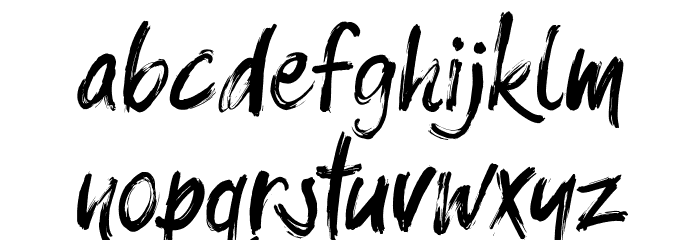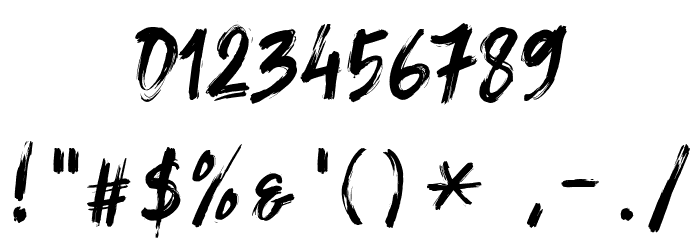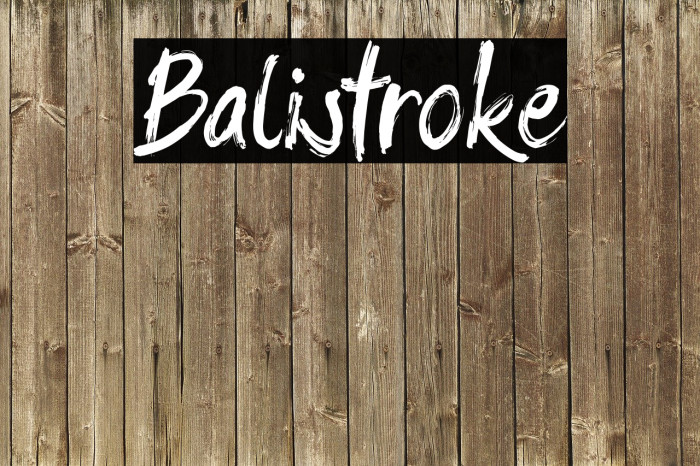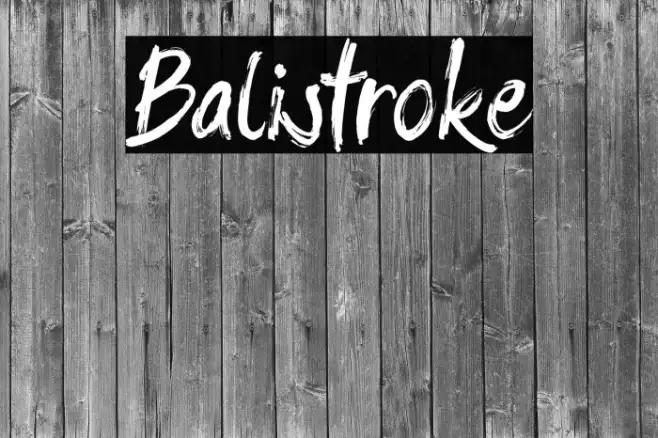
Balistroke Font
This font exudes a bold and expressive style, characterized by its brushstroke appearance. Each letter is crafted with a dynamic and energetic flair, giving it a hand-painted look. The strokes vary in thickness, creating a sense of movement and spontaneity. The uppercase and lowercase letters maintain a consistent style, with the uppercase being slightly more pronounced. Numbers and special characters follow the same artistic approach, ensuring a cohesive look across all elements. This font is ideal for projects that require a touch of creativity and individuality.
A bold, brushstroke-style font with dynamic and expressive characters.
- Proposed Projects: Ideal for artistic projects, branding, posters, and any design needing a creative, hand-painted touch.